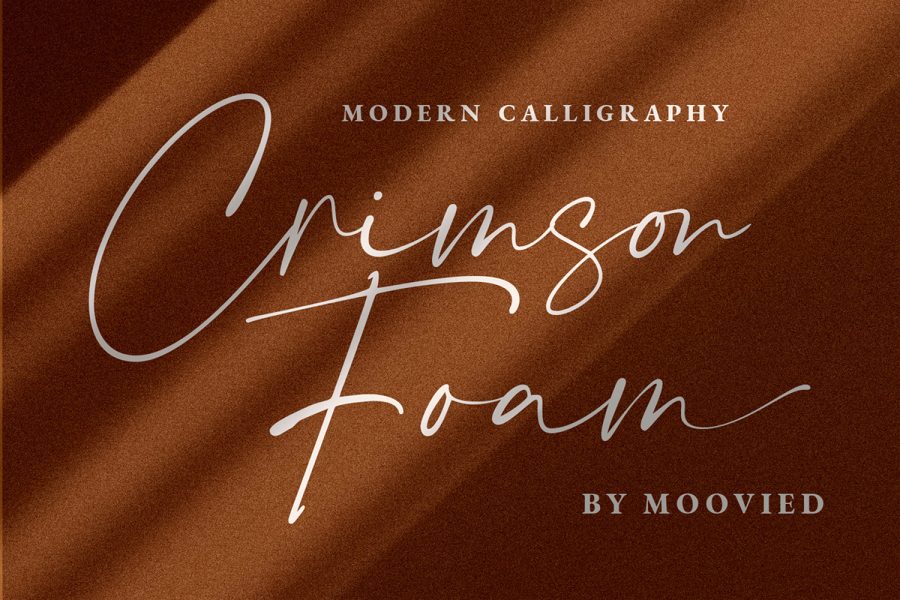
Crimson Foam Stylish Font
Crimson Foam Stylish Font is the new beautiful chic script from Moovied.Co. As you can see, the font is suitable for branding, weddings, social media, product design, stationery, advertising other romantic projects.